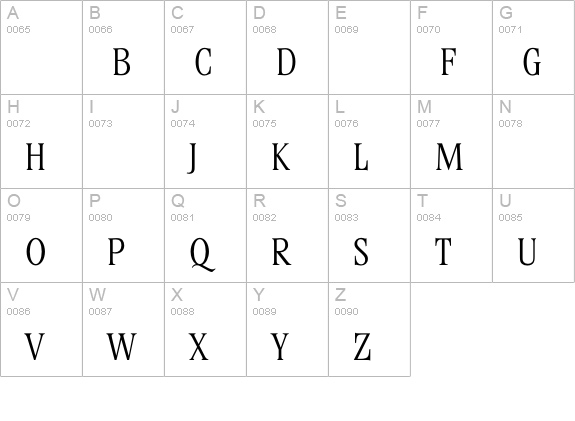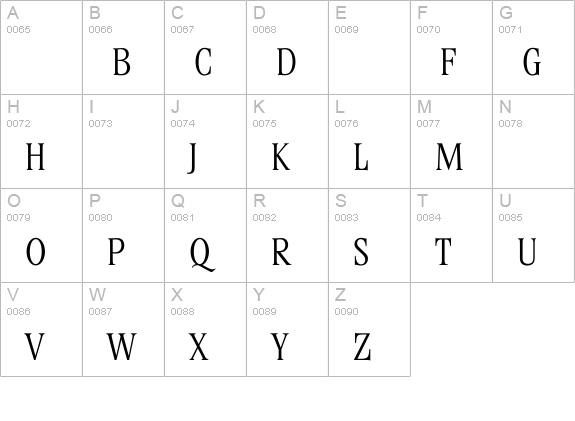
StirlingLight Font Details
StirlingLight font is a stunning and elegant typeface that exudes sophistication and class. Its delicate curves and graceful lines make it the perfect choice for adding a touch of refinement to any design project. The light weight of this font gives it a delicate and airy feel, making it ideal for use in elegant invitations, upscale branding, and stylish editorial layouts. What's even better is that StirlingLight font is available for free download at FontsMarket.com! This means you can easily access this beautiful typeface to enhance your creative projects without any cost. Whether you're a graphic designer, a blogger, or a small business owner looking to elevate your branding, StirlingLight font is a versatile and stylish option that won't break the bank. Download it today and add a touch of luxury to your designs with this exquisite font.